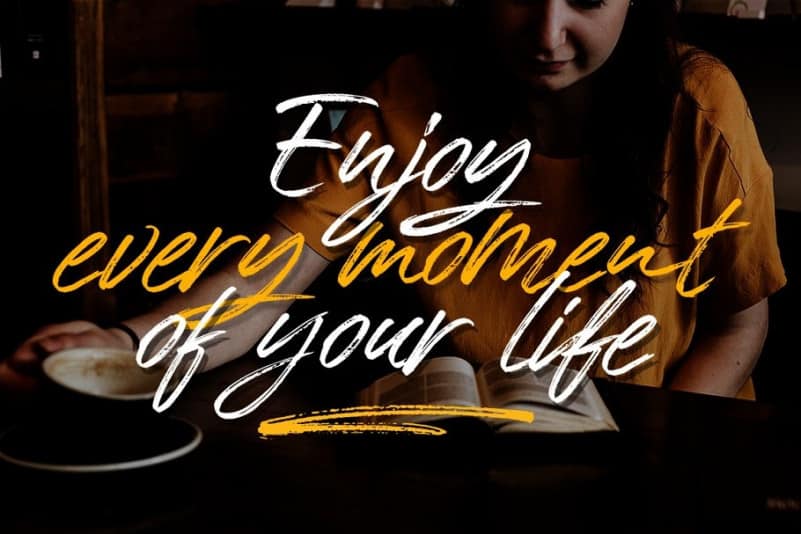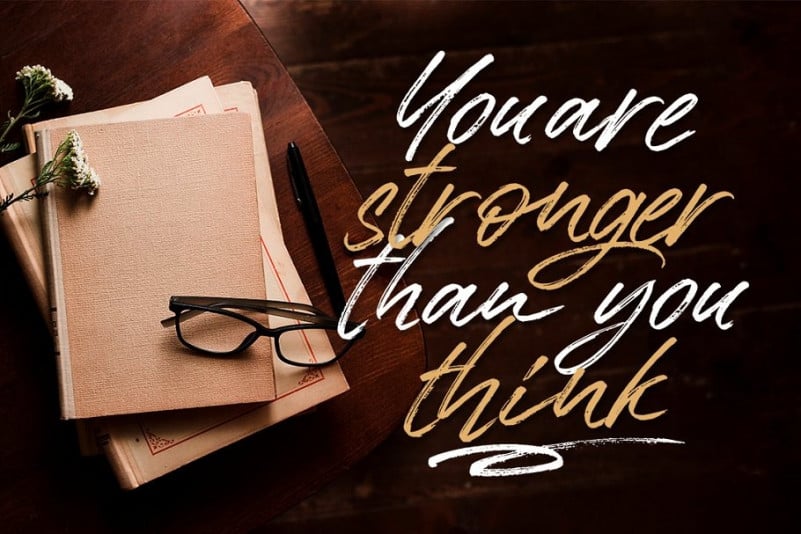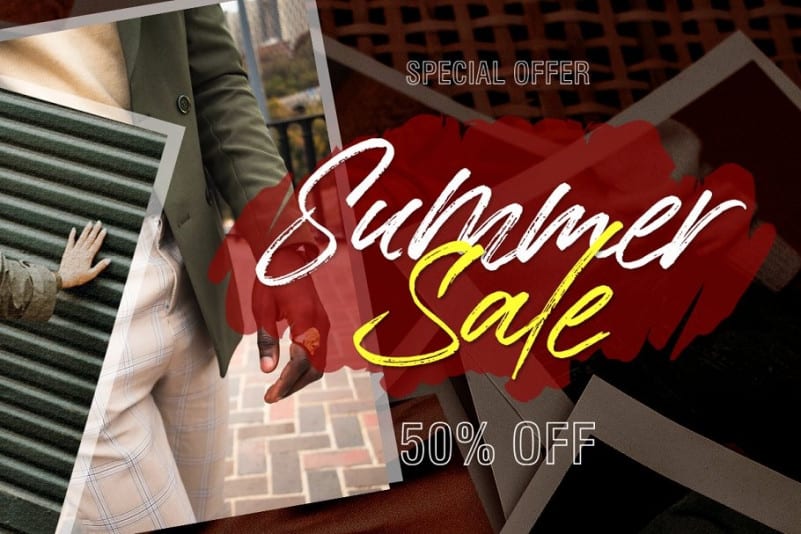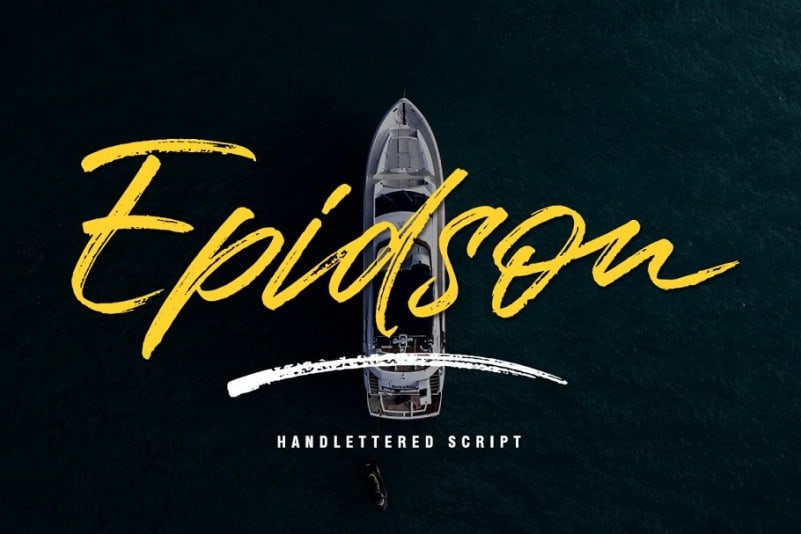
Epidson Brush Script Font
Introducing Epidson Brush Script Font. It’s a hand brush script font with a rough style and dramatic movement, a textured brush font! This font style inspired by luxury goods and branded makes in many ways for your latest project. It is design and shared by Lettersams. Epidson Brush Script Font is a rough brush script font with a clear style and dramatic movement This font is great for your next creative project such as logos, printed quotes, invitations, cards, product packaging, headers, logos, letterheads, posters, clothing designs, labels, and so.